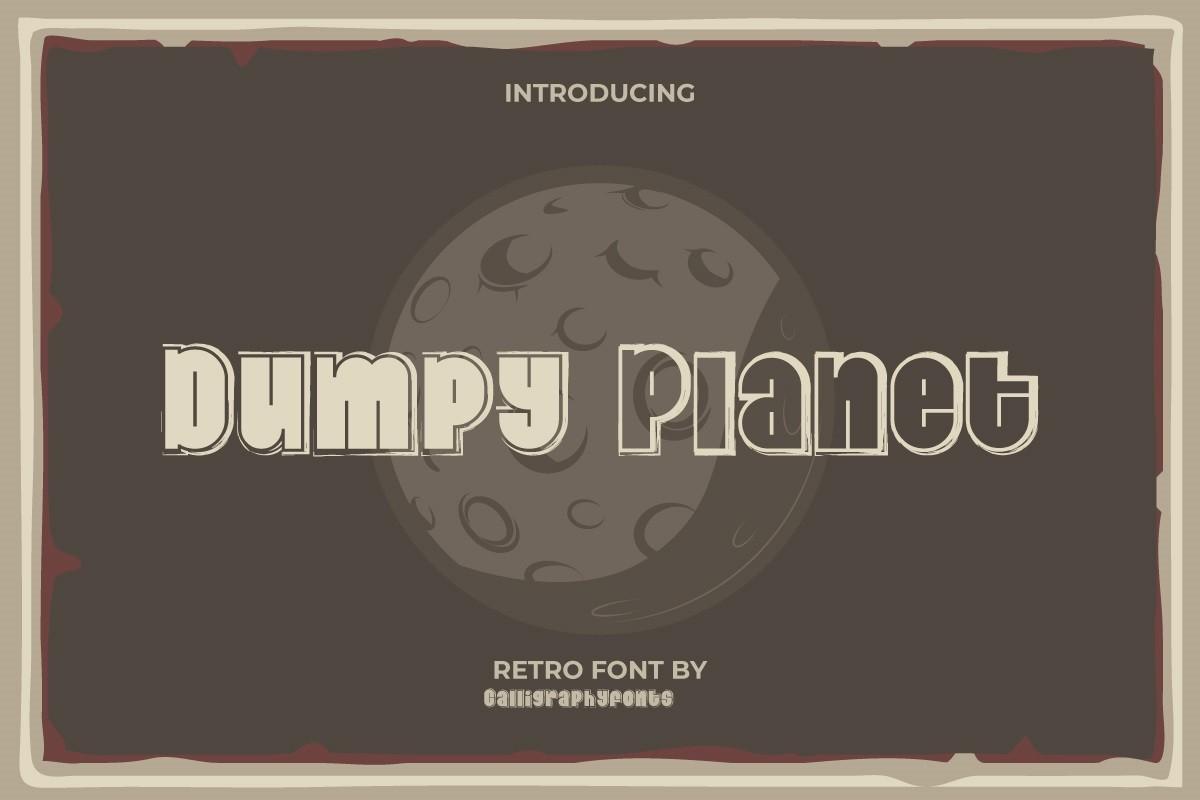
Dumpy Planet Font Description
Dumpy Planet is a cool and assertive display font. It will elevate a wide range of crafting ideas, from cards, to branding, labels and much more. Add it confidently to your favorite creations and let yourself be amazed by the outcome generated.